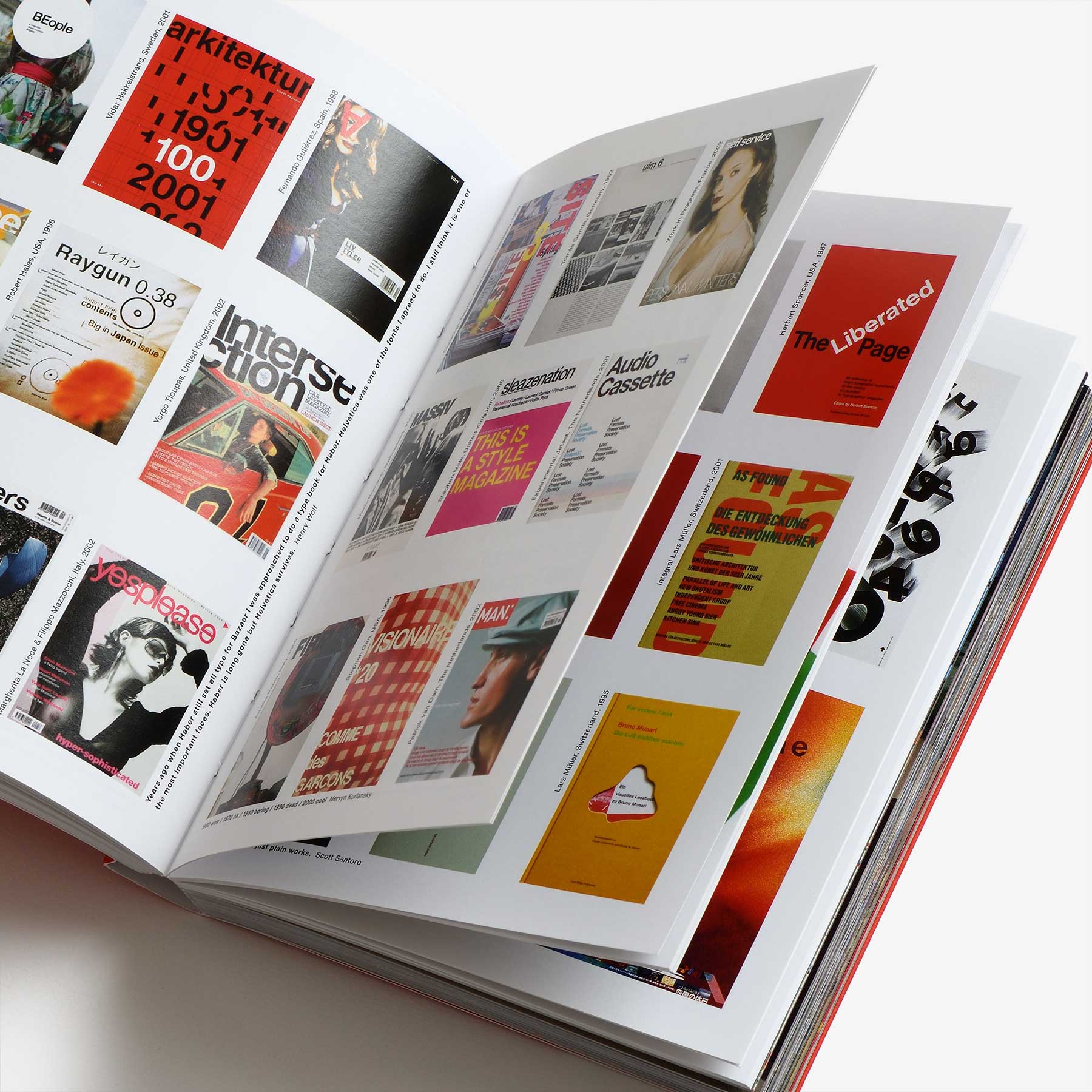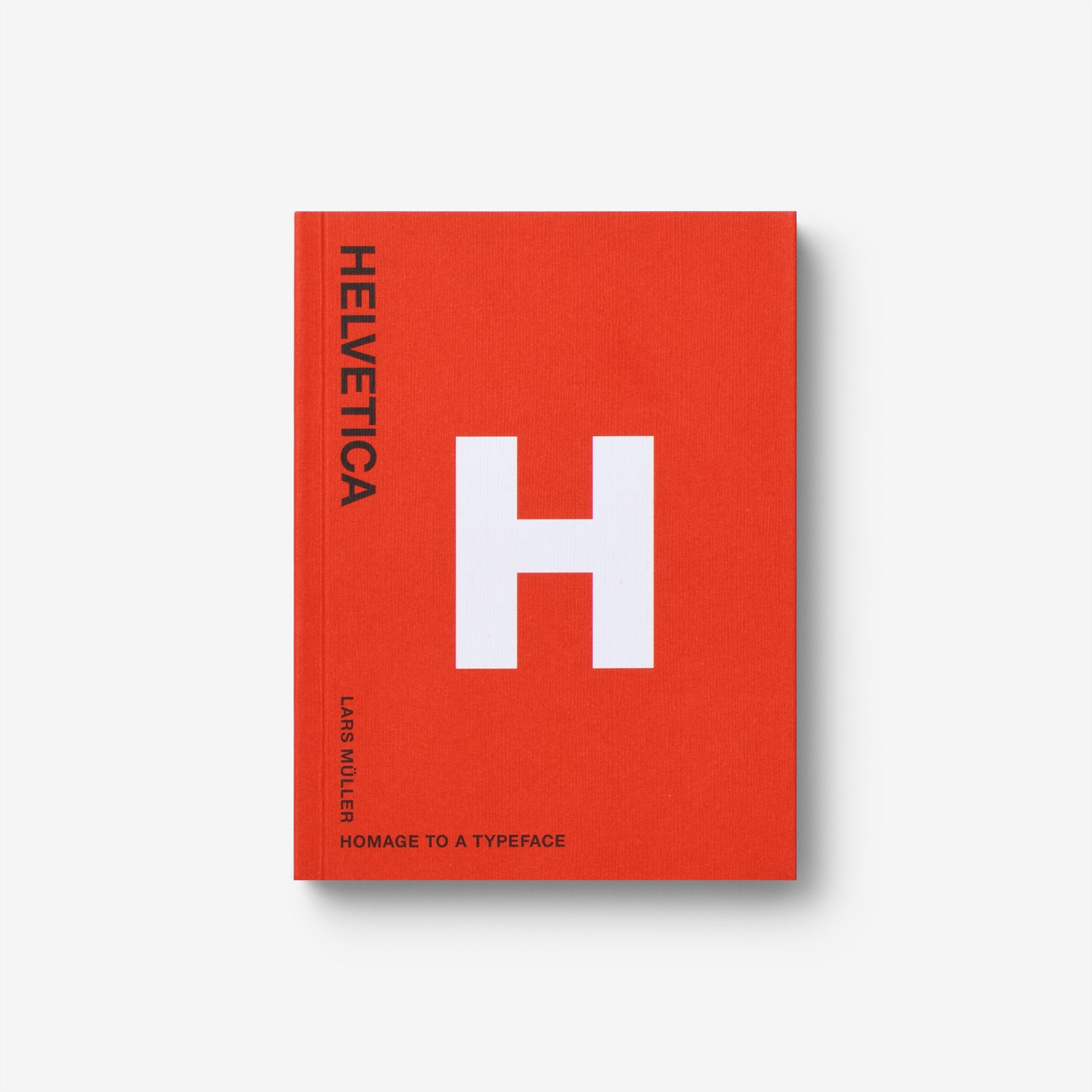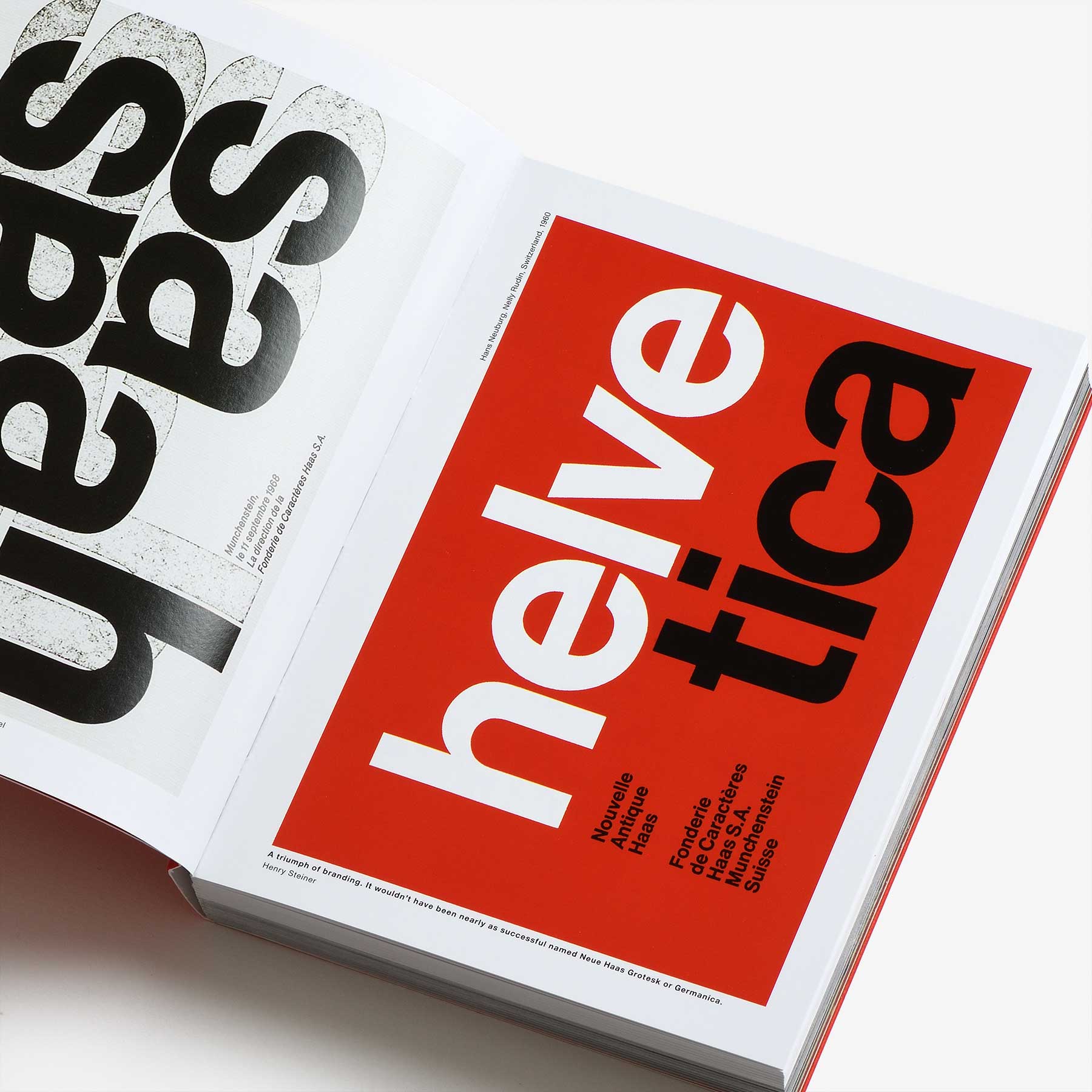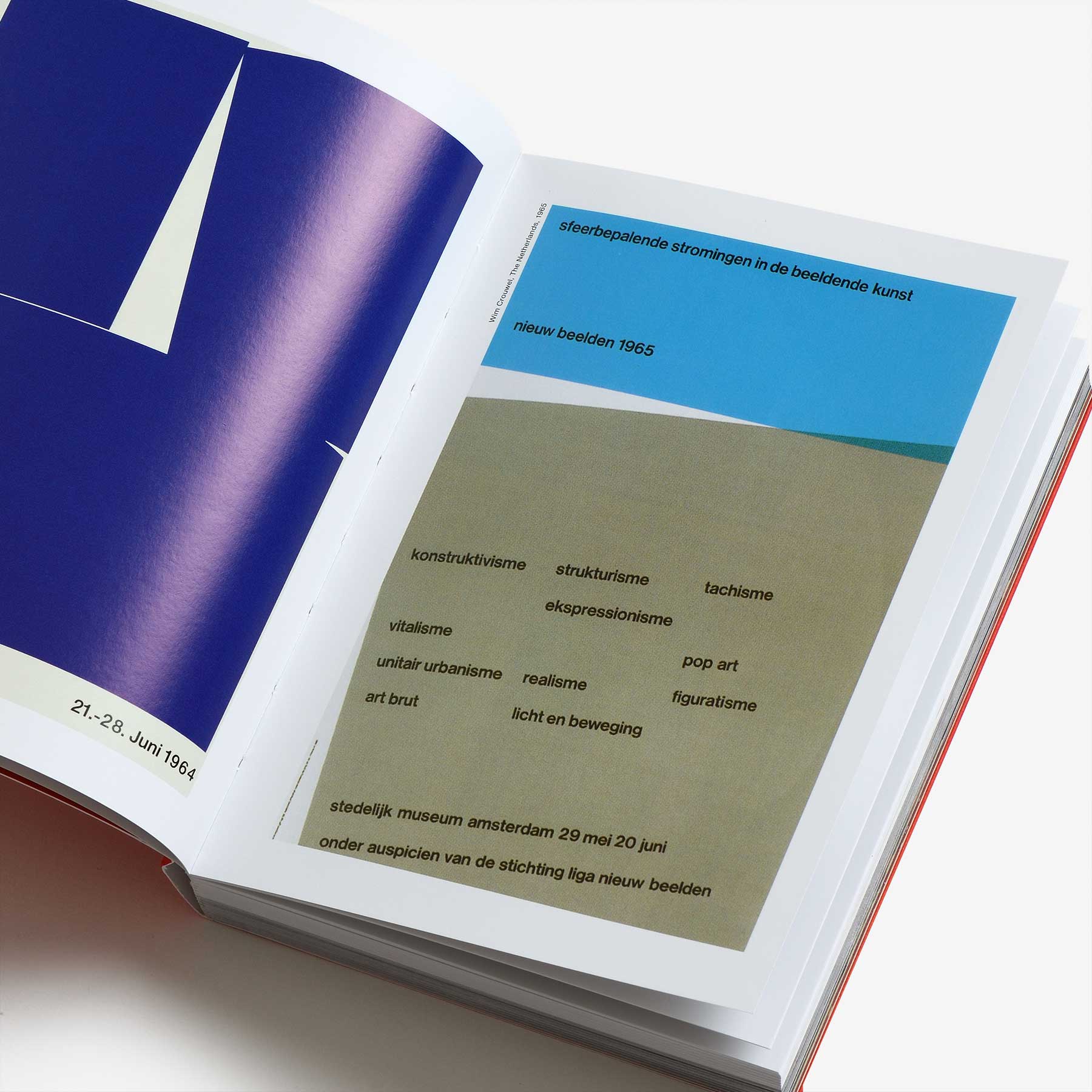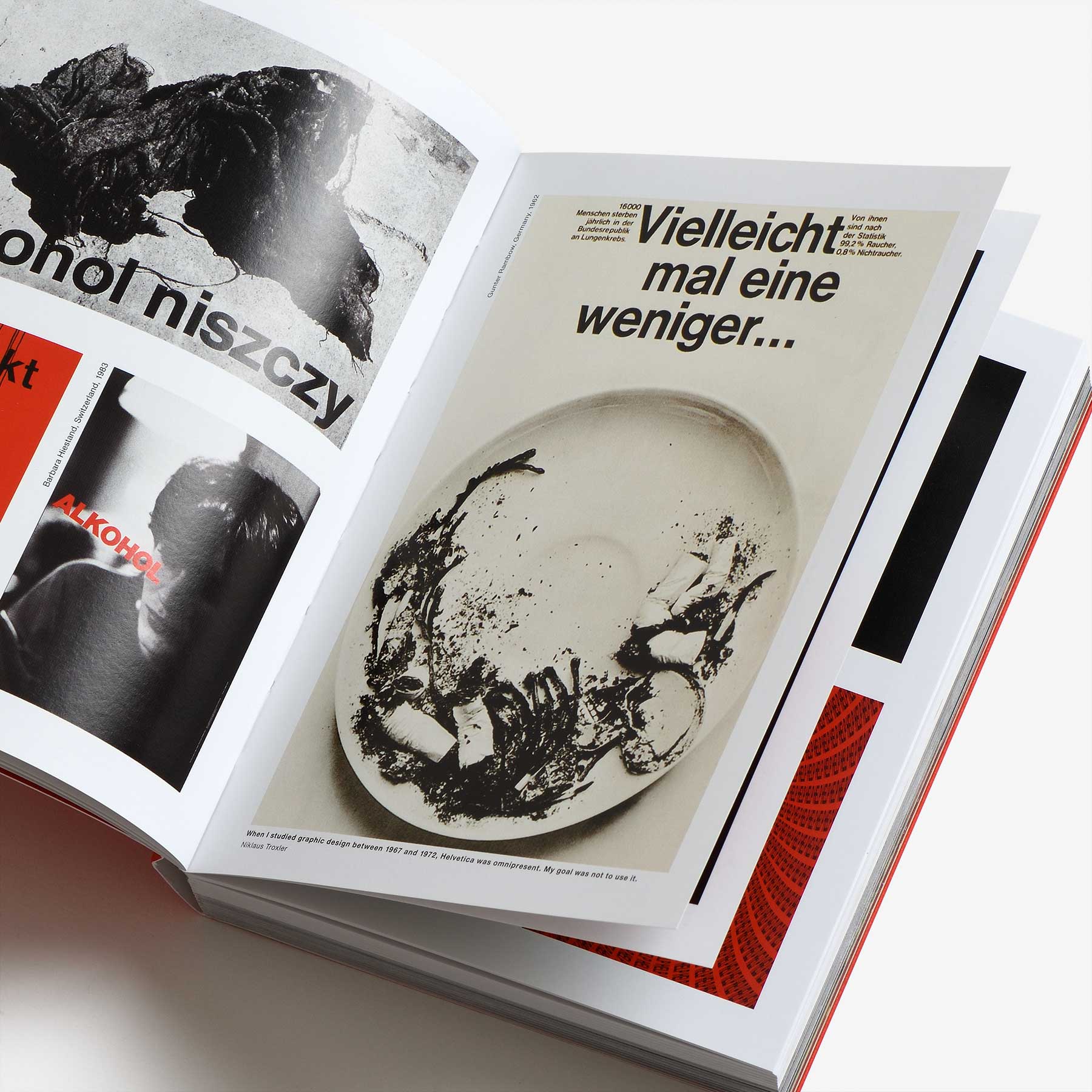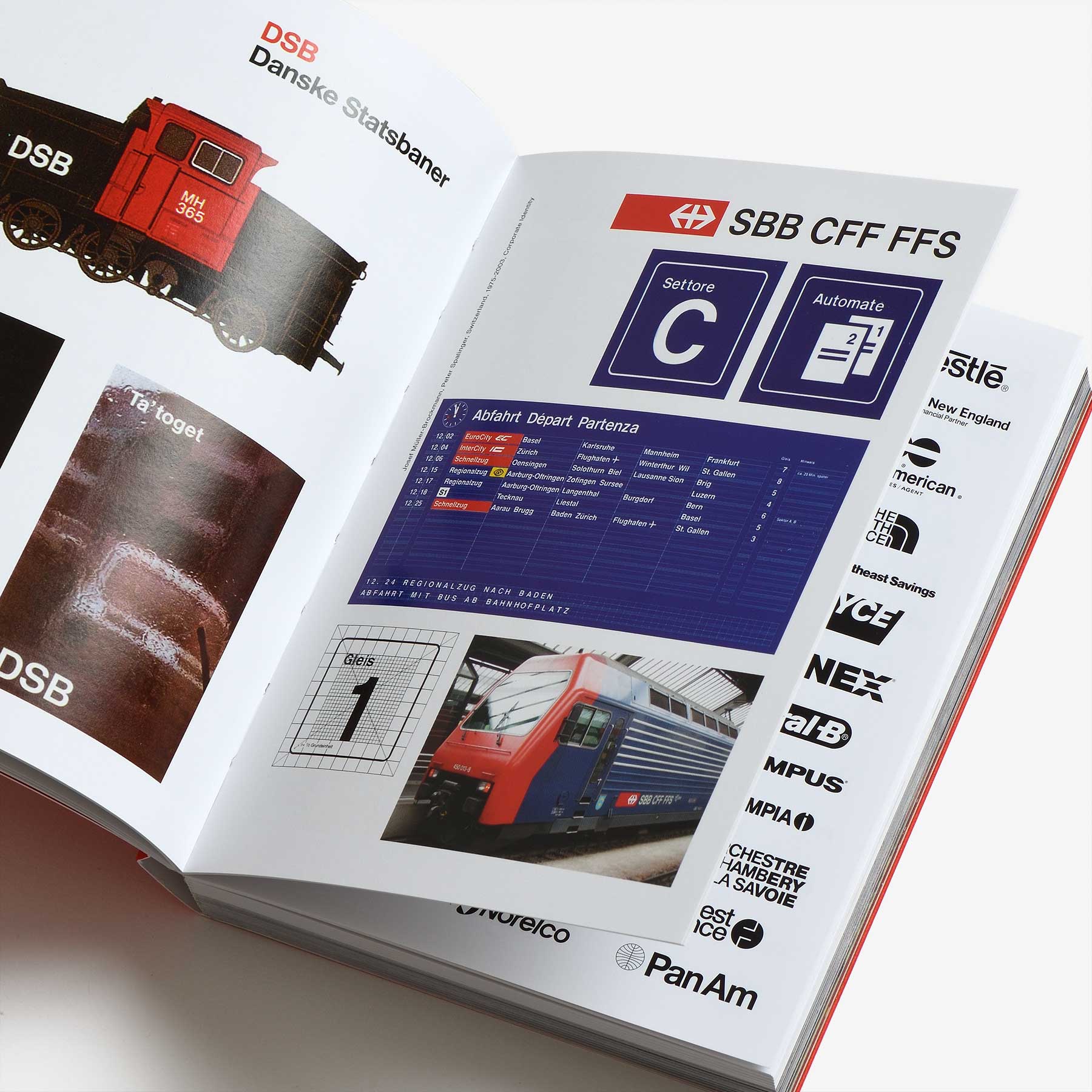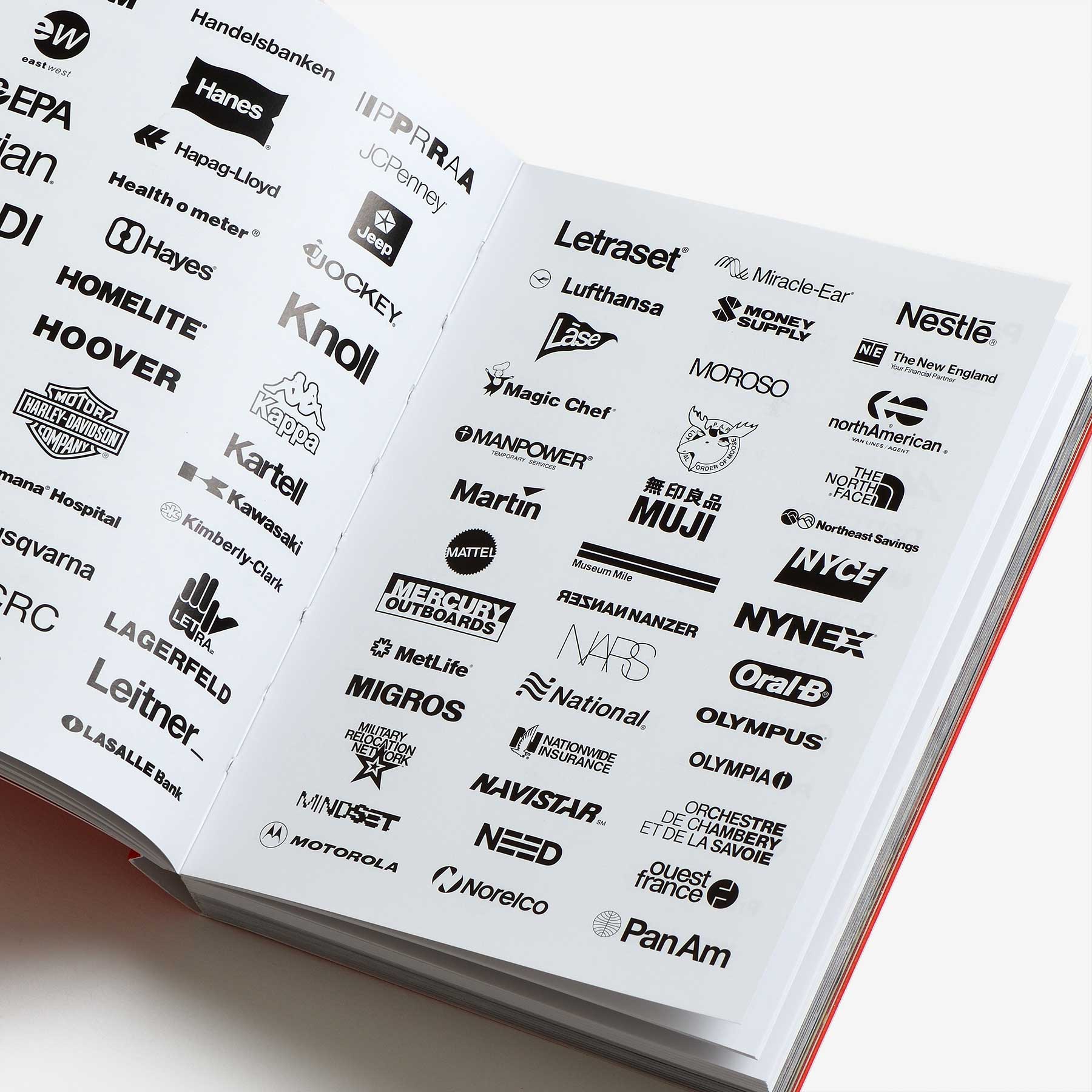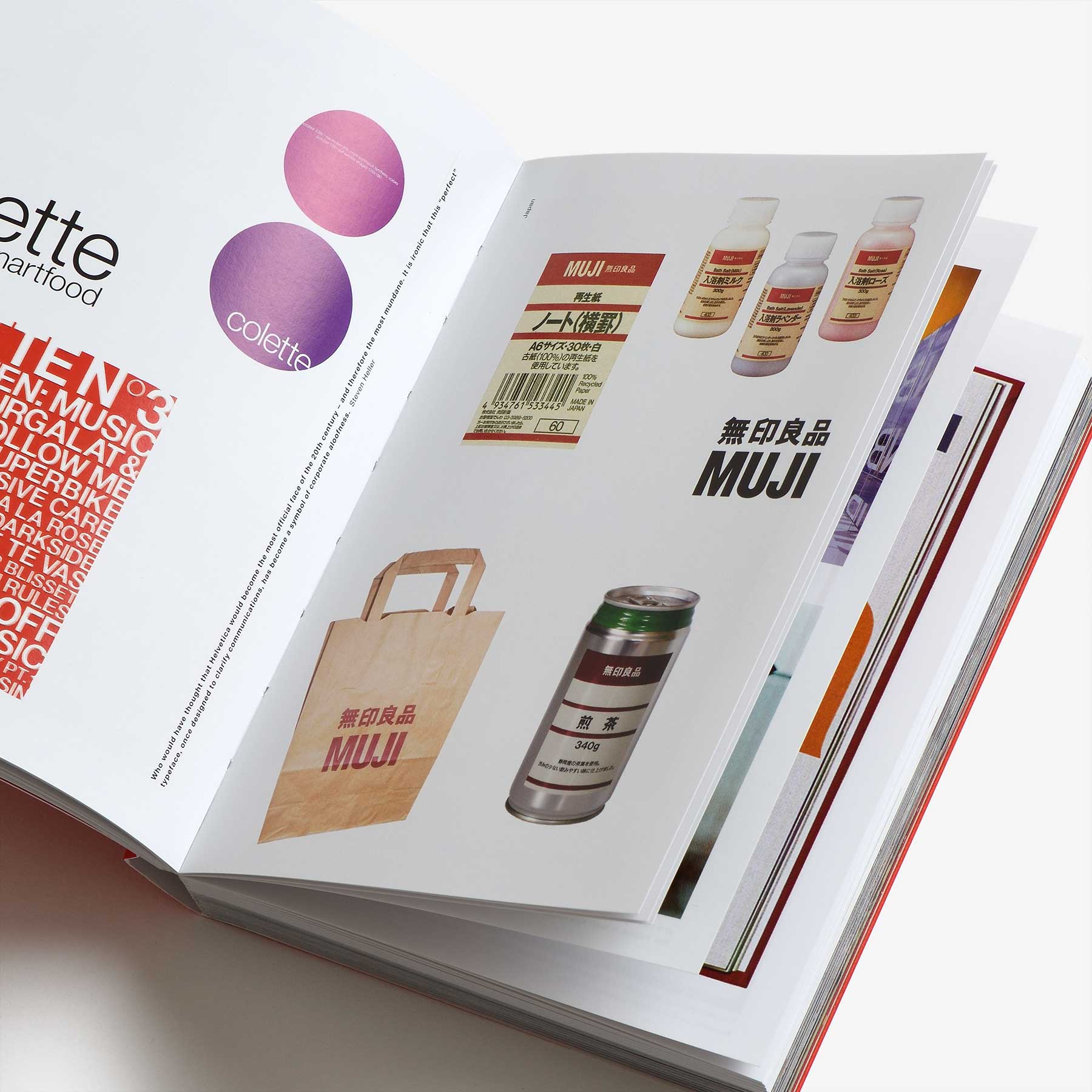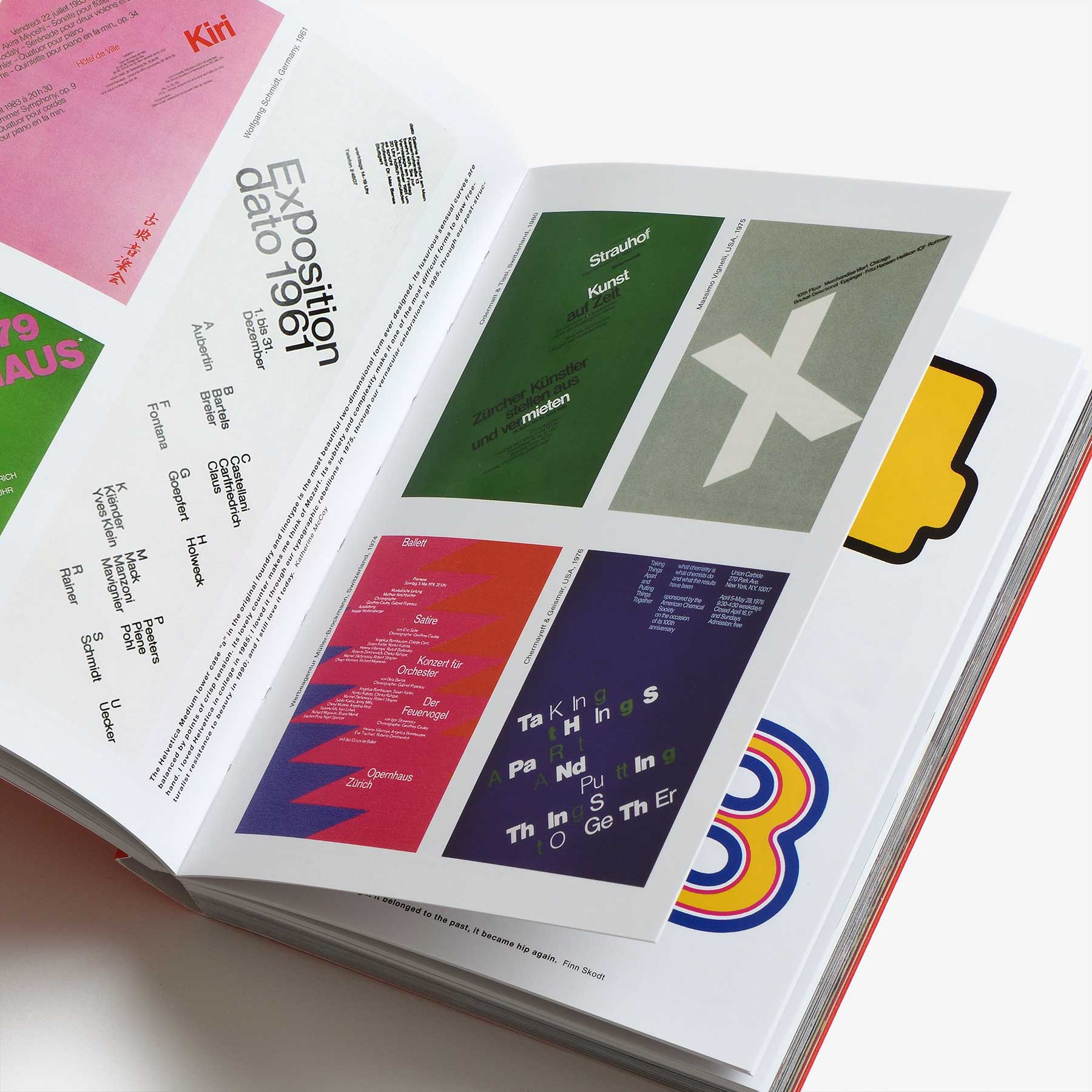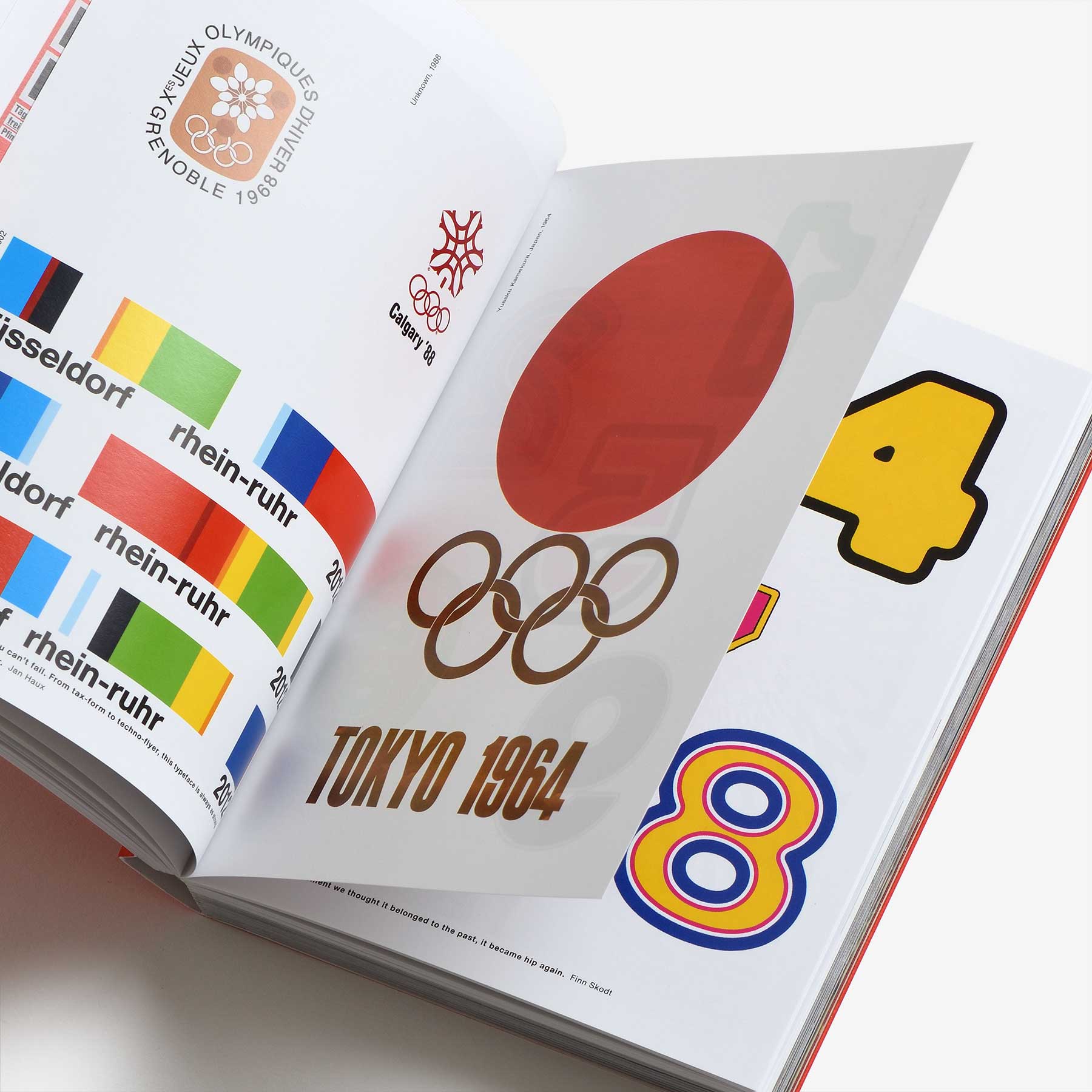
Helvetica: Homage to a Typeface
In 1957, Swiss typographer Max Miedinger came up with “Haas Grotesk”. Renamed Helvetica after 1960, this typeface went on to become one of the world’s most used typefaces ever. It embodies the myth of Sachlichkeit, propagated at the time by Swiss Typography. This book sings the praises of this shift-worker and solo entertainer of typefaces, of its forgotten creator and all those who have contributed to its unparalleled international march of triumph over the past forty years. The designs gathered together here in honour of Helvetica have been created by superb designers and anonymous amateurs from all over the world. They present a unique panoply of this icon of modern design. Superb applications are juxtaposed with an anonymous collection of ugly, ingenious, charming, and hair-raising samples of its use. Helvetica is not only the preferred typeface of leading professionals, it is also an all-time favourite among the multitude of codes and signals and commands that enliven urban life.